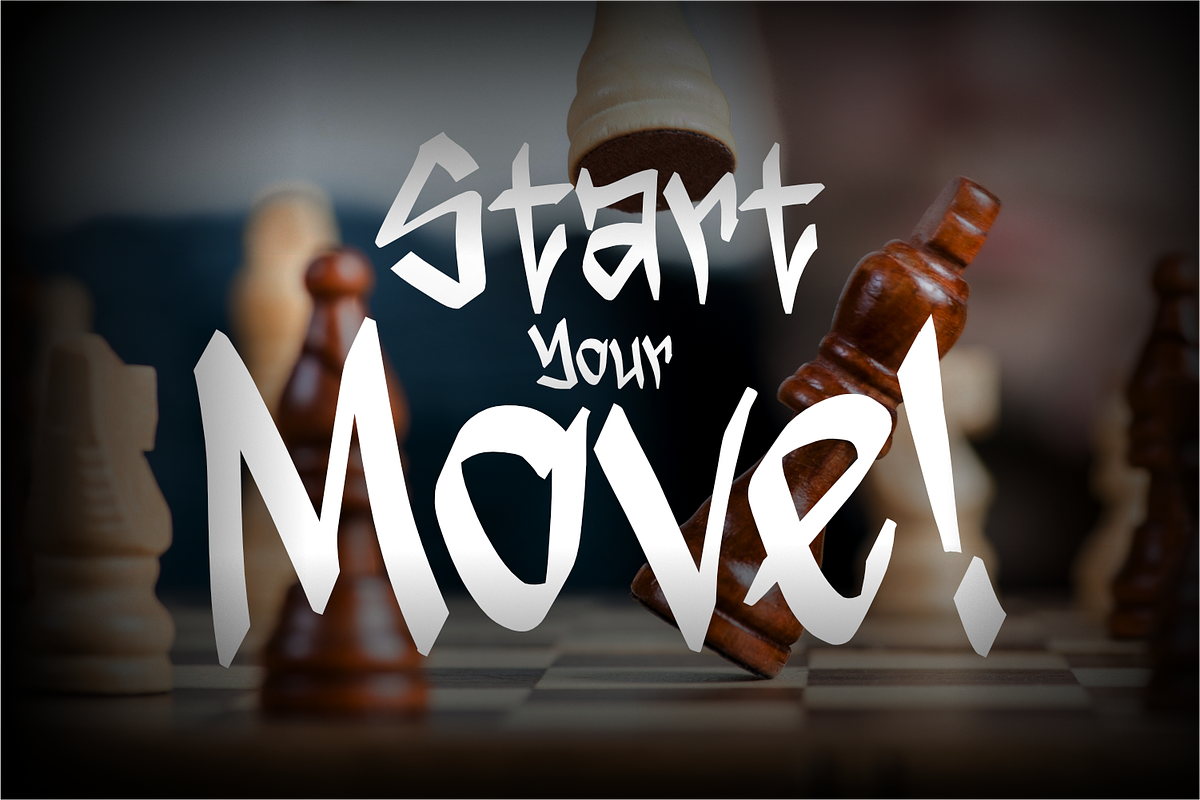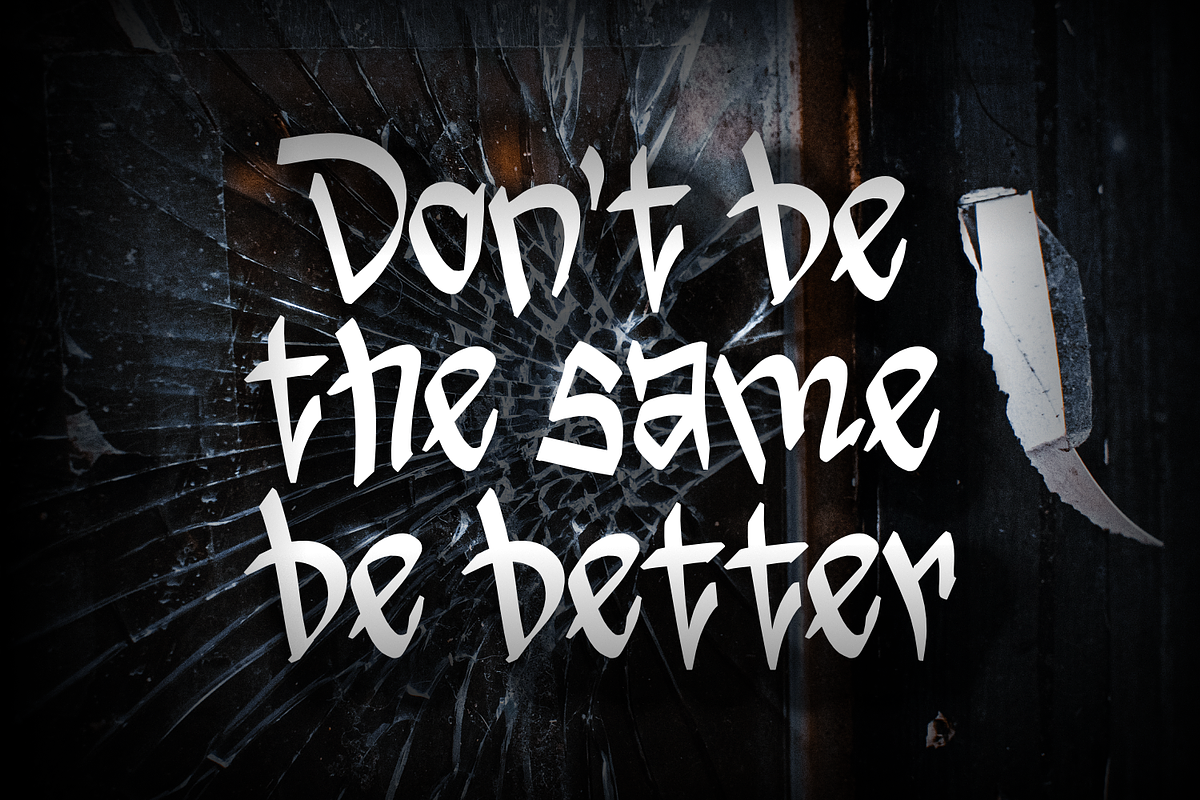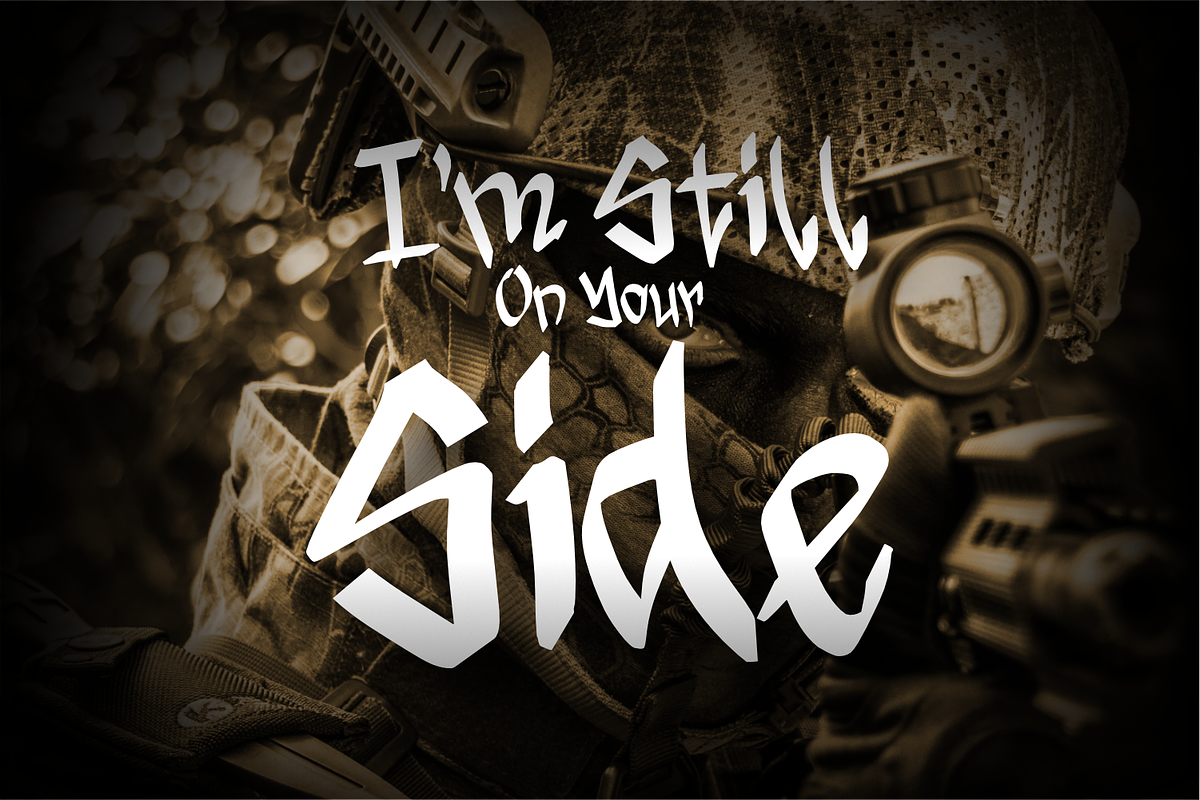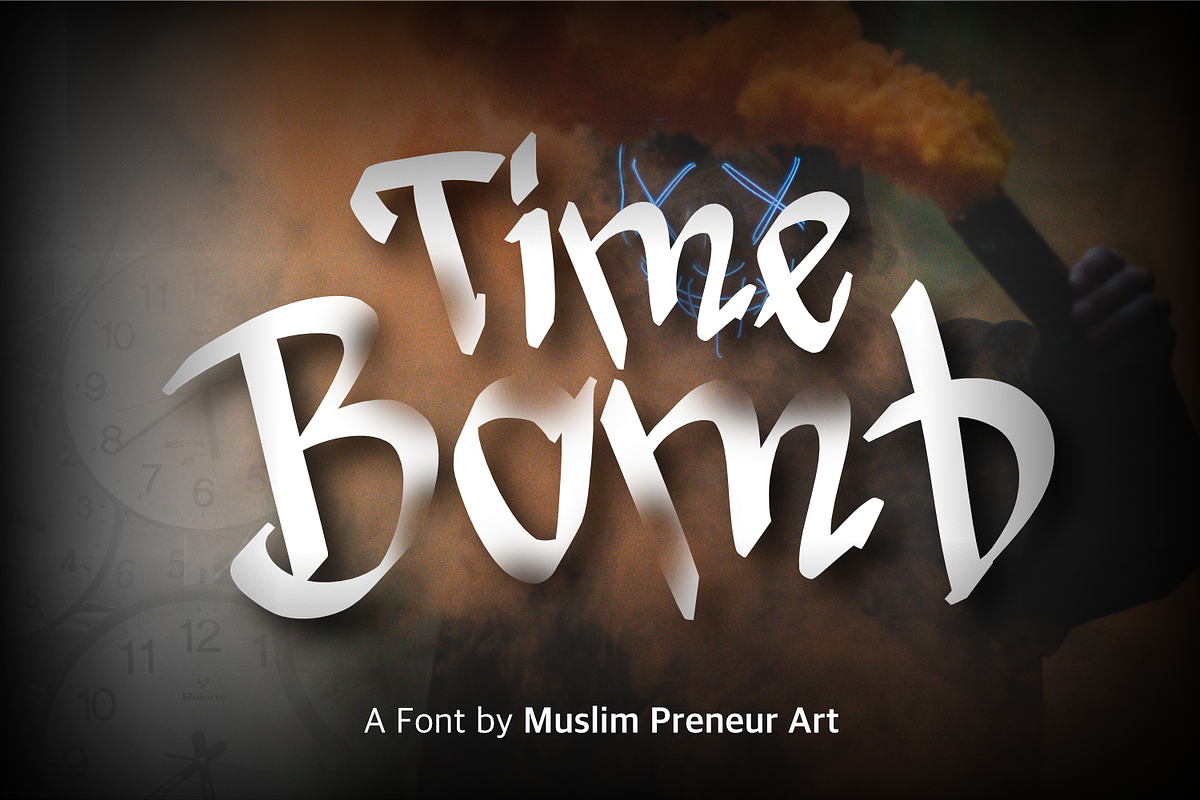
BOMB TIME
TIME BOMB — Bold Horror Brush Display Font
Description
Time Bomb is a bold and expressive horror brush display font with a raw, aggressive, and unpredictable character. Inspired by thriller movies, survival stories, dark action scenes, psychological horror, and underground aesthetics, this typeface combines rough brush strokes with sharp, irregular letterforms to create an intense visual impact.
Its distinctive hand-painted appearance gives every word a sense of urgency and tension. The angular shapes, uneven edges, and dynamic strokes make Time Bomb especially effective for designs that need to feel dangerous, mysterious, rebellious, or dramatic.
Unlike traditional horror fonts that rely heavily on dripping blood or distressed textures, Time Bomb offers a more contemporary brush-lettering approach. This makes it versatile enough for horror posters, thriller titles, album artwork, gaming graphics, streetwear, merchandise, book covers, and cinematic branding.
Time Bomb works especially well as a headline and display typeface, where its strong personality can become the main visual element of a composition.
Horror & Thriller Posters
Movie & Series Titles
Halloween Designs
Horror & Survival Games
Book & Novel Covers
Crime & Mystery Projects
Album & Music Artwork
Streetwear & Merchandise
YouTube & Social Media Graphics
Dark Branding Projects